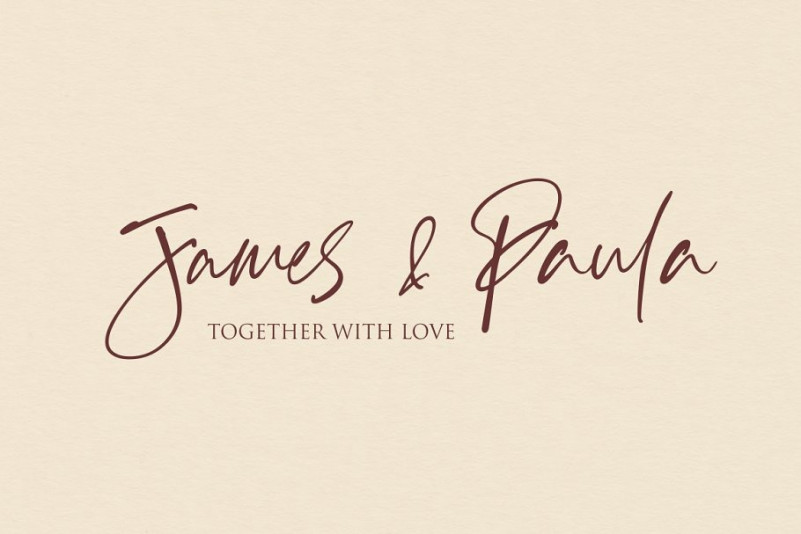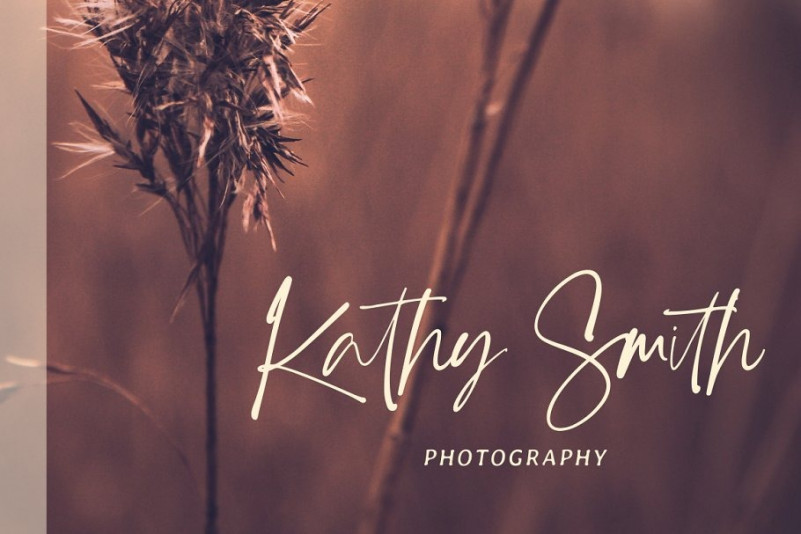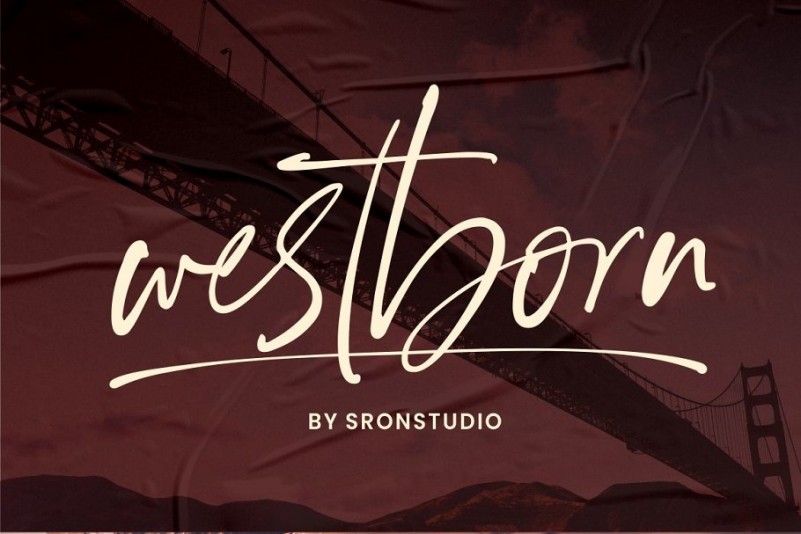
Thunder Brush Font
Thunder is a new modern brush font, incredibly adaptable to all sorts of designs. It is suitable for any branding, product packaging, quote, t-shirt, label, poster, logo that you wish to create.